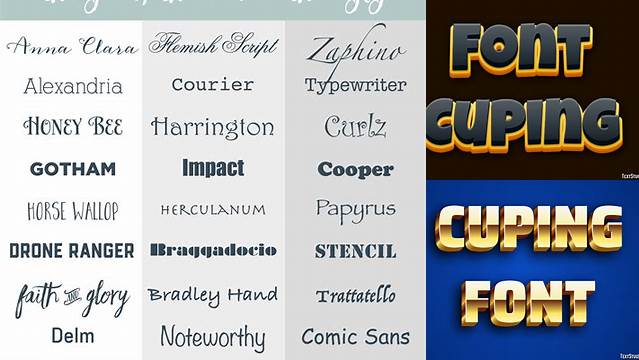
Fonts Cuping: The Ultimate Guide
Hey guys! Ever stumbled upon the term "Fonts Cuping" and wondered what it's all about? Well, you're in the right place! This guide is your one-stop shop for everything you need to know about Fonts Cuping. We'll dive deep, explore various aspects, and make sure you walk away with a solid understanding. So, buckle up, because we're about to embark on an exciting journey into the world of Fonts Cuping!
Unveiling the Mystery: What Exactly are Fonts Cuping?
Fonts Cuping is, in essence, a specific term that relates to the visual design and typography used in various contexts. While the exact definition can be nuanced and context-dependent, it generally refers to the particular style, arrangement, and overall aesthetic of the fonts employed. Think of it like this: just as you carefully choose your clothes to convey a certain image, the fonts you select also send a message. These fonts, whether they're used for a logo, a website, or a printed document, play a crucial role in shaping how your audience perceives your message. Fonts Cuping is often considered when designing materials, ensuring that the font choices are not only visually appealing but also enhance the message being conveyed. The selection of fonts impacts the tone, readability, and overall impact of the communication. It's like the secret sauce that brings a design to life. This includes the font type, size, color, and spacing. Choosing the right Fonts Cuping means considering your target audience and the message you want to convey. Using a playful font for a kids' product, for example, or choosing a serious font for a law firm. The subtleties in font choice can have a big impact.
Fonts cuping can significantly influence the mood and personality of any project. This is where the creative journey really takes off. Understanding Fonts Cuping helps designers make intentional choices that align with their project goals. It's important to consider the brand's personality, the target audience, and the overall visual narrative to create effective designs. When the Fonts Cuping is well-executed, it ensures readability, enhances comprehension, and evokes the desired emotions in viewers. A successful design requires careful attention to detail, and every element needs to work together to create a seamless experience. So, whether you're a seasoned designer or just getting started, knowing about Fonts Cuping is essential. This means having an excellent eye and a solid understanding of what makes a design truly great. Pay attention to the fine details to create visually captivating and effective work.
Diving Deeper: The Key Components of Fonts Cuping
When we break down Fonts Cuping, several key components come to light. These elements work together to shape the visual experience. First up, we have font selection. This involves choosing the right font families to convey the message. Next, we have font size, which must be appropriate to the text's purpose, ensuring readability. And then there is spacing, where you can set the right amount of space between letters and lines, which ensures the text is easy to read and looks clean. Beyond the obvious, we also consider the color. Then we have font hierarchy. The font hierarchy dictates what the reader notices first. It is the structure of the text. Using different sizes, weights, and styles for headings and subheadings helps to guide the reader's eye and communicate the importance of information. A clear hierarchy can significantly improve the reader's ability to understand and digest the information. Fonts Cuping allows you to design text that looks great and guides users easily through any written content. Also, we can't forget about font pairing. Choosing fonts that complement each other is key. Pairing the right fonts can enhance the look and feel. Poor pairings can make the project look unbalanced and can distract. When done right, font pairings create a visually appealing design that enhances readability and the message. It's a good idea to always explore different combinations. Try pairing different fonts and see what works best.
Careful consideration of these elements is vital to creating any effective visual communication. By selecting appropriate fonts, controlling size and spacing, and organizing content, designers can create layouts that are both easy to read and visually engaging. So, always keep in mind these key components! Every font is different and brings its own personality to the table. This creates a truly successful design.
Selecting the Right Font Families in Fonts Cuping
Choosing the right font families is the cornerstone of Fonts Cuping. The font family you select sets the tone for your whole project. It is the foundation on which the other elements build. Each font family has its own personality and conveys certain emotions. Fonts like Serif are generally associated with tradition and formality. Sans-serif fonts, on the other hand, look modern and clean. You also have decorative fonts which are more playful and casual. Each selection will bring a different feel to your design. Before picking a font, consider your project's goal, your target audience, and the message you want to convey. The goal is to choose a font that aligns with your brand's identity.
For example, if you are designing something formal, such as a legal document, you may want to select a classic font. If you want to create a friendly design, you might choose a softer, more rounded font. By considering these factors, you can choose a font that fits your needs. A good choice of font will help convey your message and make it more appealing to your audience.
The font family should match the design. A font can make a project great or make it a total miss. The personality of a font should match the project's message. The tone of the font should complement the design. Experiment with different fonts to see what works. When you find the right font, it can bring your designs to life. Make sure you take some time to research fonts. Try to keep everything in mind when choosing your font family.
Font Size and Readability: Crucial Aspects of Fonts Cuping
Font size is a very important part of Fonts Cuping, which affects how easy it is to read. The size of the font affects the readers' ability to understand your message. If the font is too small, it can be hard to read and can make people want to click away. If the font is too big, it can be distracting and can make the design seem unprofessional. The proper size ensures that your content is not only readable, but also creates a good visual experience.
Font size affects readability, so choose a size that's easy to read. A font that's too small can strain the reader's eyes, while too big can feel overwhelming. When picking a font size, consider the device your readers will use. Make sure the font size is legible on all devices. Then, think about the type of content you are designing. A good font size will enhance the content's impact.
The ideal font size varies based on context. The type of project matters, and what size works best. Also, consider the audience. The goal is to pick a size that best meets the needs of the audience. It is also essential to consider the purpose of your text. For headings, you want to create a size that commands attention. For the main body text, choose a size that's easily readable. Experimenting with different font sizes can help you find the best size for your text.
Mastering Spacing Techniques in Fonts Cuping
Spacing is very important in Fonts Cuping. It helps create a sense of balance. The way you space your words can make or break your design. Spacing involves the spaces between letters, lines, and paragraphs. Well-executed spacing creates an aesthetically pleasing layout. Proper spacing in Fonts Cuping plays a very important role in readability. The spacing you choose impacts how the reader experiences your content. This also improves comprehension. It helps the reader follow the text easily and efficiently. So, spacing isn't just about looks; it is about function.
Spacing is very important to the way a reader interacts with the text. So, you want to make sure you can space your text well. This affects the readability of the text. Good spacing enhances the reader's experience. It allows the reader to focus on the content. Good spacing also helps to create a clear visual hierarchy.
Proper spacing can enhance the visual appeal and readability of your project. Keep in mind that bad spacing makes your content hard to read. This can cause people to ignore your text. Also, spacing can affect how the reader perceives your information. Pay attention to spacing to help your design be the best it can be. This ensures that your project is both visually appealing and easy to understand.
The Role of Color in Fonts Cuping
Color choice is an important part of Fonts Cuping. You want to pick the colors that best work with your project. Colors can affect how the reader perceives your message. Color has a big effect on the overall mood of a project. You want to make sure the colors convey the right feel. Color creates a visual hierarchy. It grabs the reader's attention and emphasizes the information. The goal is to use color to draw the reader to the most important aspects of the design.
Consider your project's goal when choosing a color palette. Choose colors that go well with your font choices. When picking colors, consider your target audience. Always choose colors that convey your brand's values. Also, you can enhance the appearance by using the right colors. Choosing the best colors will enhance the content and experience of your design. Then you can make your text visually captivating.
Use color thoughtfully to enhance design and readability. Experiment with various color schemes to find what works best. Understanding and using color is very important for a successful design. Make sure to always think about how color choices can enhance your project's message.
Implementing Font Hierarchy in Fonts Cuping
Font hierarchy is critical in Fonts Cuping. It helps guide the reader and it makes it easy to understand the content. By using various sizes, weights, and styles, you tell the reader which content is more important. This way, readers can scan the text quickly and understand the information.
Font hierarchy should make the design easier to understand. Use headings to split up text. You want to use headings, subheadings, and body text to show the organization. Keep the most important elements in a larger size. Then, you can use subheadings to break up larger blocks of text. Remember to keep the fonts and sizes in the whole design consistent. Proper use of hierarchy increases readability. It ensures that the reader can grasp the information easily.
A good font hierarchy should be easy for people to understand. Using a clear visual hierarchy will guide the reader through the content. Make sure to carefully plan the hierarchy to give your reader a good experience. A well-planned hierarchy is very important. You can use font hierarchy to enhance your design and make sure the message is clear.
Choosing the Right Font Pairings in Fonts Cuping
Font pairing is also a crucial part of Fonts Cuping. The pairing of fonts affects the overall aesthetic and readability. Matching fonts with different styles and personalities enhances the visual impact. You can create a balanced and visually appealing look when you pair fonts well. The goal of good font pairings is to create a design that is easier to read. It is also important to consider the overall personality of your project. Font pairings contribute to a clear visual structure.
Consider the characteristics of each font before pairing them. You want to make sure they work well together. Always make sure they complement each other. Think about the contrast and harmony when choosing a pair. Try to choose fonts that differ in style. You can use a serif font with a sans-serif font.
By using the right font pairings, you can enhance the readability of the text. The font pairing affects the design, so make sure to make the right choice. You want to make sure you choose the right fonts. It makes the design look amazing, and it creates a good user experience.
Font Cuping in Action: Real-World Examples and Applications
Let's look at the real-world. We can see how Fonts Cuping affects designs. You can see that the font choice can impact the mood and readability of the project. Fonts are used in a wide range of designs. They are used on websites, and in print materials. In branding, fonts help to represent the values of a company.
In the world of branding, Fonts Cuping is very important. You see it in logos, and marketing materials. The right font creates a good first impression. You can also see it in the use of fonts in publishing. You can see the font choice that helps with readability and the overall design.
Understanding Fonts Cuping will help you create effective visual designs. Keep in mind the project goals and the target audience. Then, look at the design with a critical eye. See how font choices affect the whole design.
Fonts Cuping in Web Design: Creating Readable and Engaging Websites
Fonts Cuping plays an important role in web design. Web designers must consider the legibility and design. Readability is the key to a good website. The reader can quickly find and digest the information. When designing a website, the font should match the brand's personality. The font should also match the overall design of the website. It is important to consider different devices and screen sizes. A responsive design allows the website to adapt to different screen sizes. This creates a good user experience across different devices.
When picking a font, make sure the font is web-friendly. Not all fonts are suitable for the web. There are different web-safe fonts. Then you want to make sure that the font is legible. The right font size and spacing will make the text easier to read. Be sure to use good headings to organize the content. Proper font choices, combined with these elements, will enhance the readability of the website. This will also create an engaging user experience. Then you can choose the right font, and make sure the website is easy to use.
Fonts Cuping in Print Media: Making Headlines and Body Text Pop
In print media, Fonts Cuping is very important. The use of font contributes to the impact of a printed piece. The font you choose affects the reader's experience. Choosing the right font is key to a great design. The font should complement the overall aesthetic of the design. For the headlines, you should choose a font that will catch the reader's eye. For body text, choose a font that is easy to read.
Keep in mind the purpose of the print piece. Different fonts are more suited for different uses. You might want to use a more formal font for a business card. You want to create a balanced layout. This helps the reader to quickly get the information. Proper font choices and layouts will enhance the reader's experience. It will make your print media more effective. So, keep this in mind when designing your prints!
Fonts Cuping in Branding: Shaping Brand Identity with Typography
In branding, Fonts Cuping is very important. It is an essential element in creating a brand identity. The font you choose speaks to your brand's values. It can also reflect the brand's personality. The goal is to create a visual representation of the brand's identity. The font that you choose is very important.
When picking a font for a brand, make sure that the font aligns with the brand's core values. It also needs to appeal to the target audience. Think about the brand's personality. Try to choose a font that conveys the right message. Consider the other design elements of the brand. Consistency in typography is vital. Consistency strengthens brand recognition. You want to use the font throughout all marketing materials. Using Fonts Cuping helps strengthen brand recognition and makes a lasting impression.
Advanced Fonts Cuping: Tips and Techniques for Professionals
For anyone wanting to go deeper into Fonts Cuping, here are some advanced tips. These ideas will help you elevate your designs. By learning advanced techniques, you can make your projects more professional. The details will give you more skills, and can help you create professional designs.
Kerning and Tracking: Fine-Tuning Letter Spacing
Kerning and tracking are very important in Fonts Cuping. Kerning involves adjusting the space between individual letters. This ensures the letters appear well-balanced and the text is easy to read. Tracking is about adjusting the spacing in a block of text. You can affect the overall density of the text. Proper kerning and tracking make the design look great.
Kerning can enhance readability and the visual appeal. The goal is to make the text more visually appealing. Use kerning to make sure the spacing is consistent. Tracking can change the overall look. By adjusting the tracking, you can fit the text into a design. Understanding kerning and tracking is essential. This allows you to fine-tune the aesthetics of any design.
Ligatures and Alternate Characters: Adding a Unique Flair
Ligatures and alternate characters add unique flair to any font. Fonts Cuping involves paying attention to detail. Ligatures are two or more letters that are combined into a single character. These characters help create a more unique design. Alternate characters are different versions of the same letter.
These can improve the visual impact. Using ligatures can make the design look very unique. Alternate characters add more personality to the text. Both ligatures and alternate characters allow you to make the text stand out. These small details can significantly impact the aesthetics of the text. Use these features to add sophistication.
Color Contrast and Legibility: Ensuring Readability for All
Color contrast and legibility are critical in Fonts Cuping. These ensure that the text is easy for everyone to read. People can quickly understand and absorb the information. Good color contrast is key. Always choose a color that is easily readable.
When designing, consider the background colors. Make sure the text stands out on the background. This guarantees that the text is easy to read. Always check if your design is accessible to people with disabilities. There are tools to check contrast levels. You can use these tools to make sure your design is accessible. If your design is accessible, the reader will get the information. Then the design will be more inclusive and effective.
Fonts Cuping: Tools, Resources, and Best Practices
To enhance your Fonts Cuping knowledge, you will need some tools. There are many resources available. There are several websites and tools that can help with font selection, pairing, and design. By using these tools, you can master the art of typography. These tools will help you refine your design skills.
Font Selection Tools: Finding the Perfect Match
There are many different font selection tools available. These tools help you discover the perfect fonts. These tools let you search, compare, and experiment with various fonts. You can choose the best font for your project. Some popular tools include FontPair and Google Fonts.
These tools offer filters to help you narrow down your options. You can search by style, weight, or even the purpose. Before using a tool, research the type of font you need. This ensures that your design is effective. Use these tools to find the best fonts.
Font Pairing Resources: Complementing Your Typefaces
Font pairing is very important, and there are great resources available. This can help you combine fonts and create a visually appealing design. With the right resources, you can choose fonts that fit together. You can find websites and guides that provide pre-made font pairings. You can also use tools that help you visualize different combinations.
Explore resources for font pairings. This will provide inspiration and guidance. Don't be afraid to experiment. Also, consider your project's needs when choosing a pair. Try to find font pairings that match the message and brand identity. Understanding these resources will enhance your design process.
Best Practices in Fonts Cuping: Staying Ahead of the Curve
To stay ahead in Fonts Cuping, you need to follow the best practices. Always stay up to date with the latest trends. Understand how to use typography to improve your designs. A good approach is to start with the fundamentals.
Experiment with different font pairings and designs. Always test your designs on different devices and platforms. Make sure your designs are easy for everyone to use. You want to learn from the best to improve your skills. Then, you can make sure your projects are effective and visually appealing. Keep learning, so you can stay ahead.
Conclusion: Embrace the Power of Fonts Cuping
So, guys, we've covered a lot! From understanding what Fonts Cuping is all about to exploring advanced techniques. Fonts Cuping is a critical part of design. It is about more than aesthetics. It is about creating a message that is clear and engaging. You now have the knowledge to make informed decisions.
So get out there and experiment with different fonts. Practice creating designs. Always keep in mind that typography is very important. By embracing the power of Fonts Cuping, you can create amazing designs. Your designs will be better and the audience will love them. You can do it! Happy designing, and keep those fonts looking sharp!